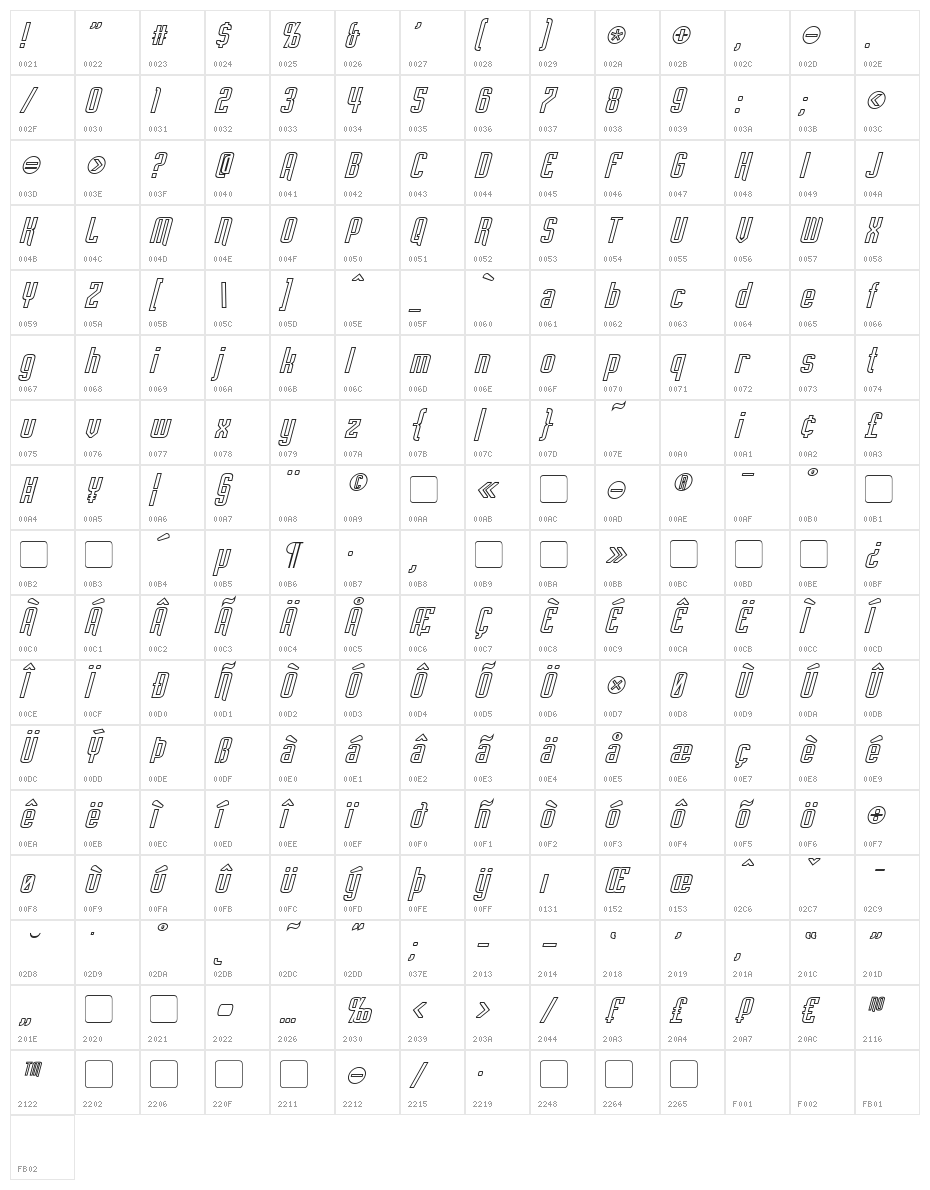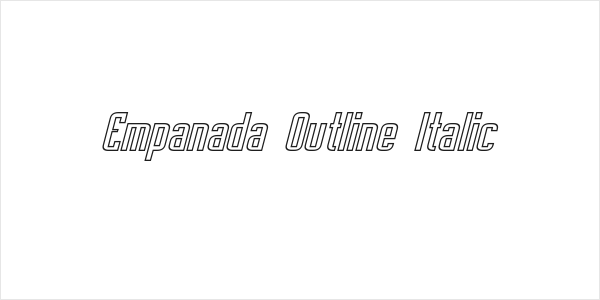
Empanada Outline Italic Font
Empanada Outline Italic Description
This font features a bold, outlined style with a distinct italic slant, giving it a dynamic and modern appearance. The uppercase and lowercase letters are consistent in their geometric design, with sharp angles and clean lines. The numbers and special characters maintain this cohesive look, making the font versatile for various design needs. The outline effect adds a layer of depth, making it suitable for eye-catching headlines and titles. Its unique style is both contemporary and slightly retro, appealing to a wide range of creative projects.
Proposed ProjectsIdeal for posters, logos, branding, and any project needing a striking, modern typeface.